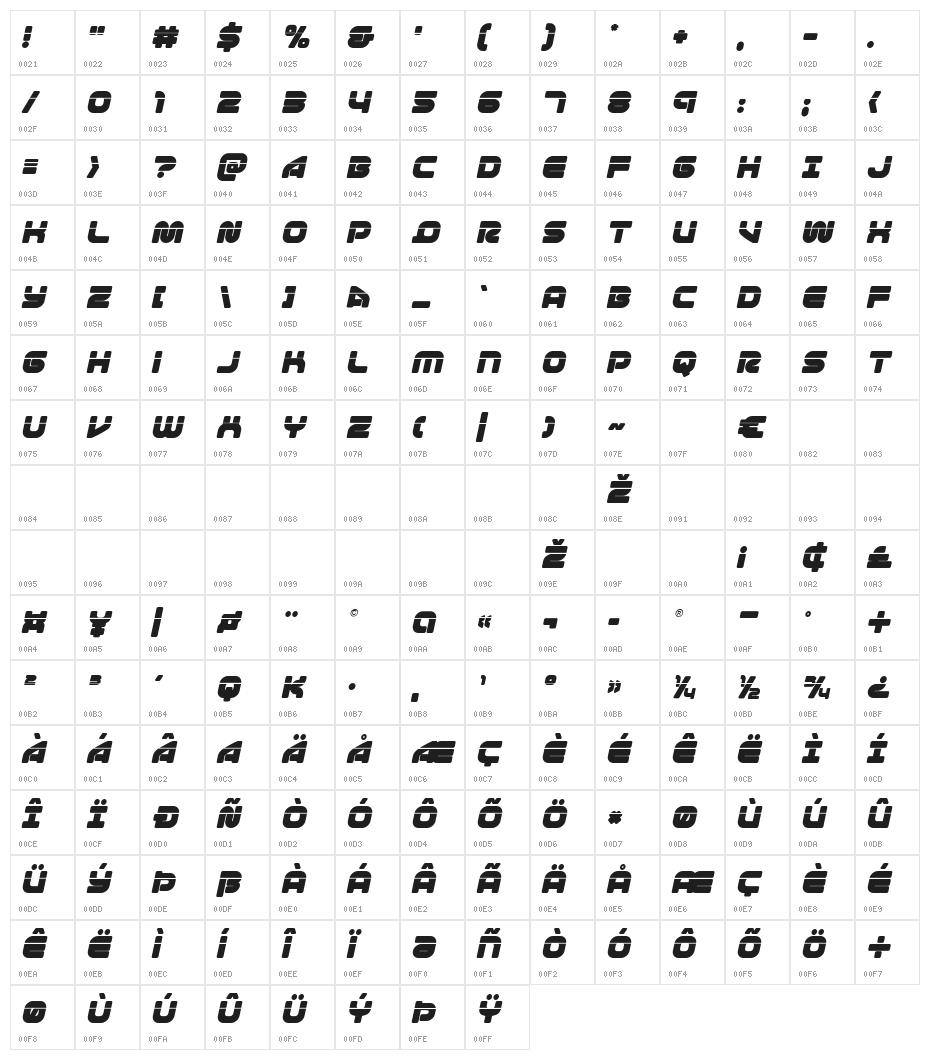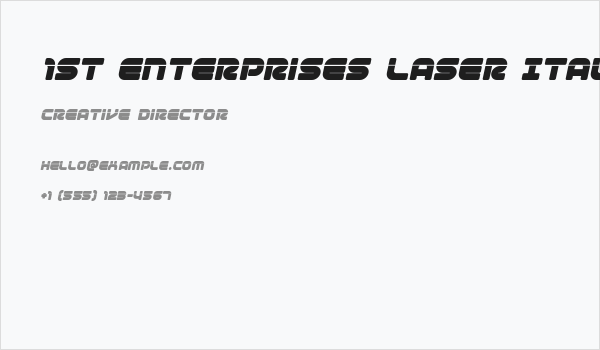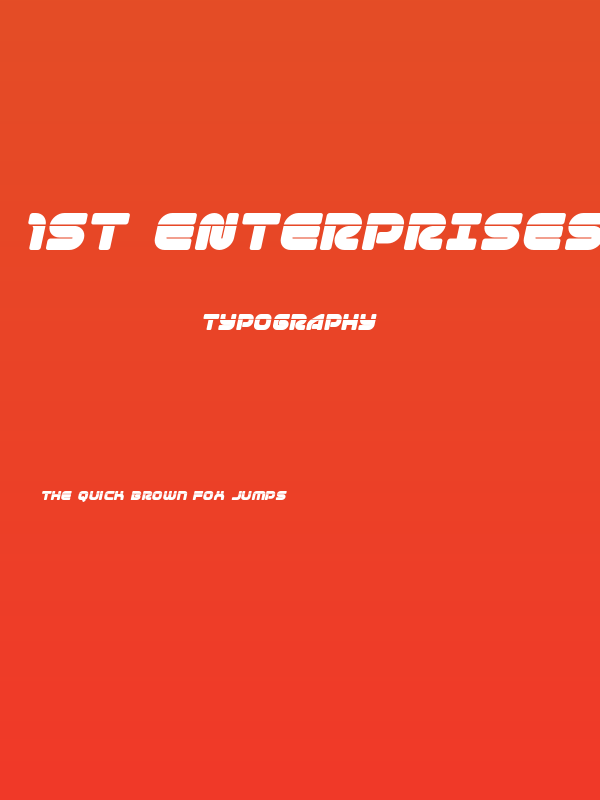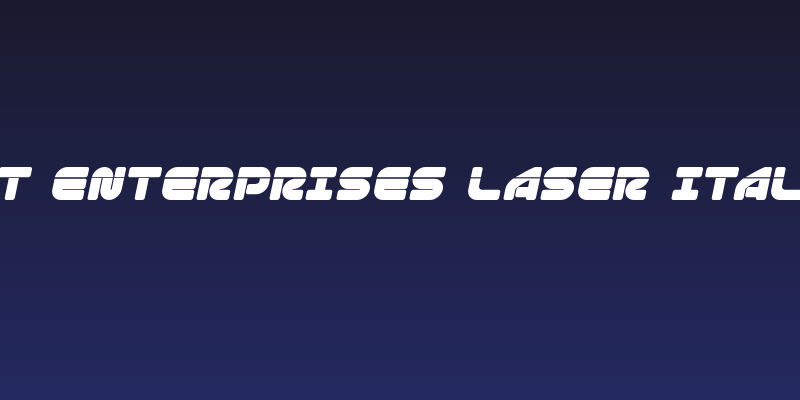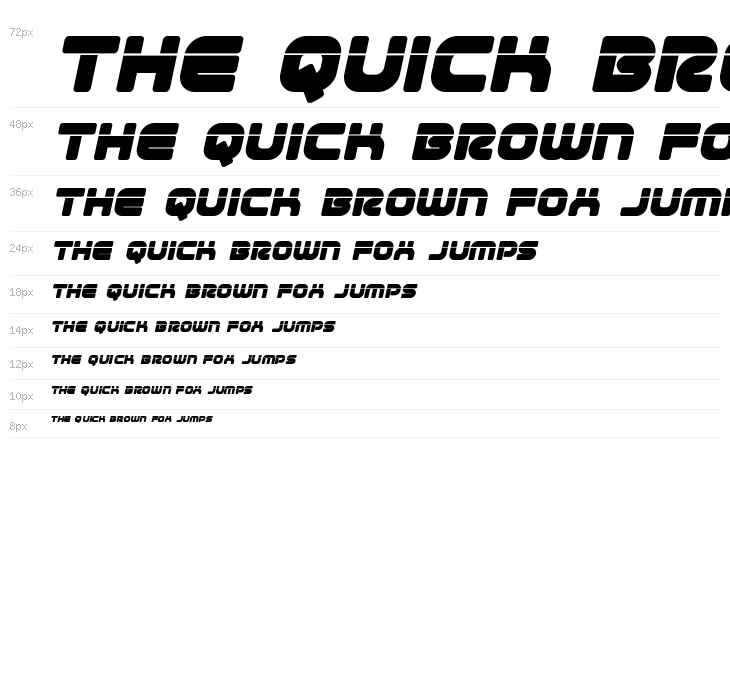
1st Enterprises Laser Italic Font
1st Enterprises Laser Italic Description
This font features a bold, futuristic design with a distinct italic slant, giving it a dynamic and forward-moving appearance. The characters are wide and rounded, with a consistent stroke thickness that conveys a sense of strength and stability. The geometric shapes and smooth curves create a modern aesthetic, making it suitable for technology-themed projects. The uppercase and lowercase letters maintain a uniform style, while the numerals and special characters integrate seamlessly, ensuring versatility across various applications.
| Proposed Projects | Ideal for technology branding, sci-fi movie posters, video game titles, and modern advertising campaigns. |